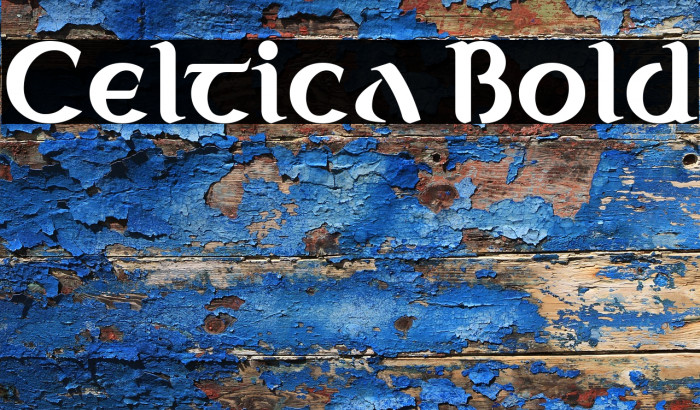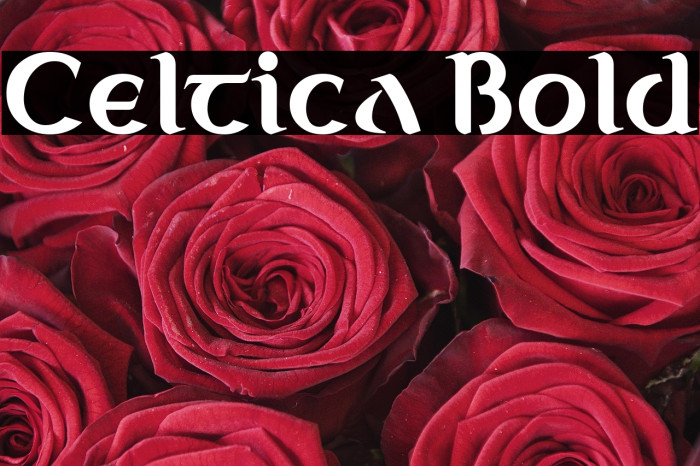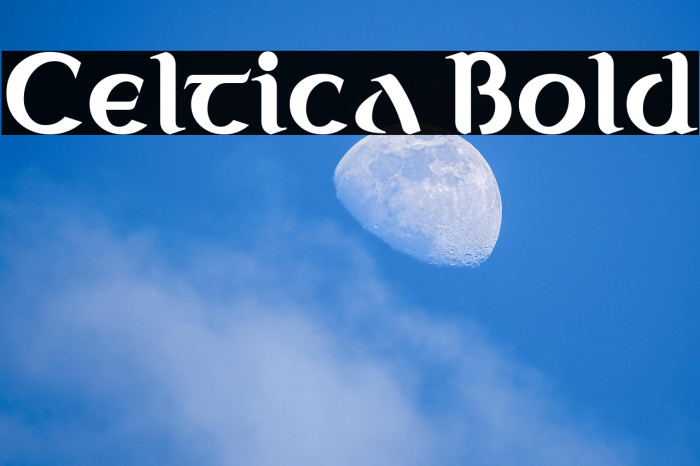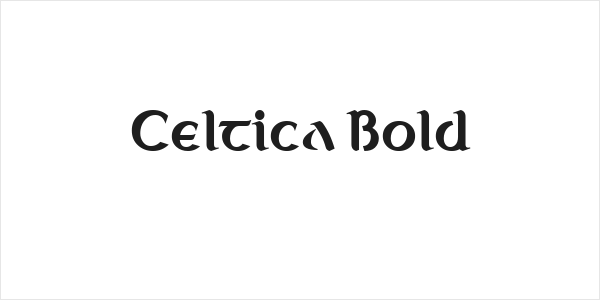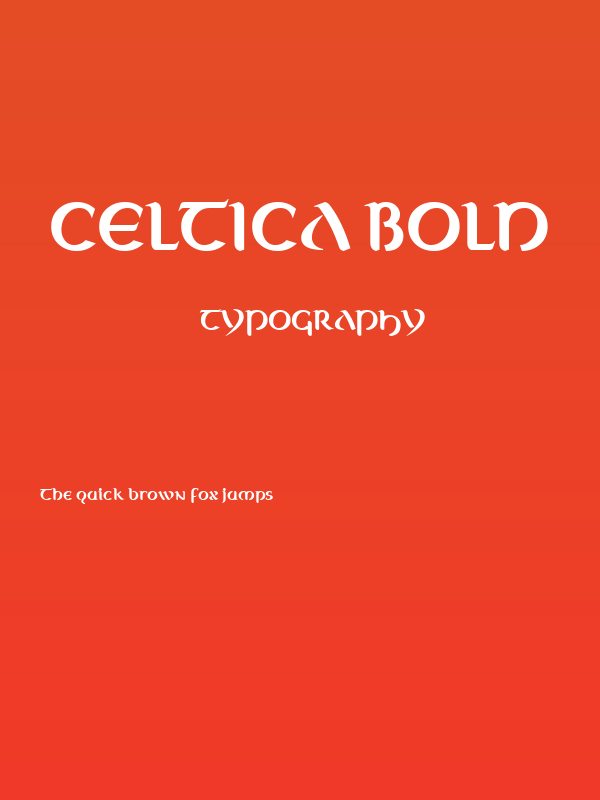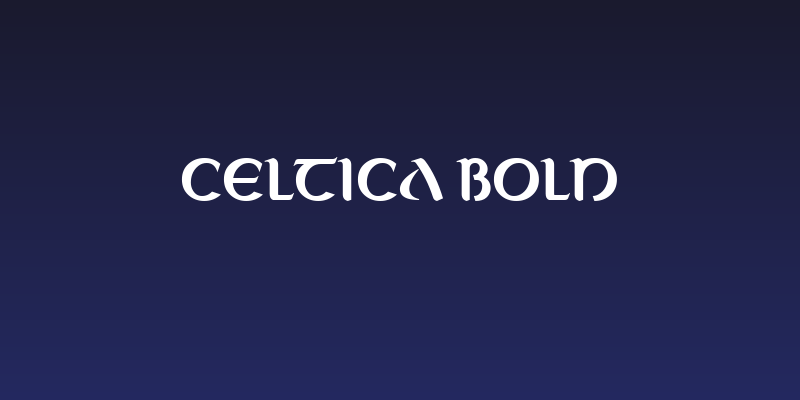
Celtica Bold Font
Celtica Bold Description
This font features a bold and decorative style with a distinct Celtic influence. The characters are designed with sharp, angular edges and intricate curves, giving it a unique and artistic appearance. The uppercase and lowercase letters maintain a consistent style, with a slight variation in stroke thickness that adds to its visual interest. The numerals and special characters are crafted to match the overall aesthetic, ensuring a cohesive look across all elements. This font is ideal for projects that require a touch of historical or cultural flair, making it perfect for themed designs or branding that seeks to evoke a sense of tradition and craftsmanship.
| Proposed Projects | Ideal for themed designs, branding, logos, and cultural projects that require a traditional or historical touch. |